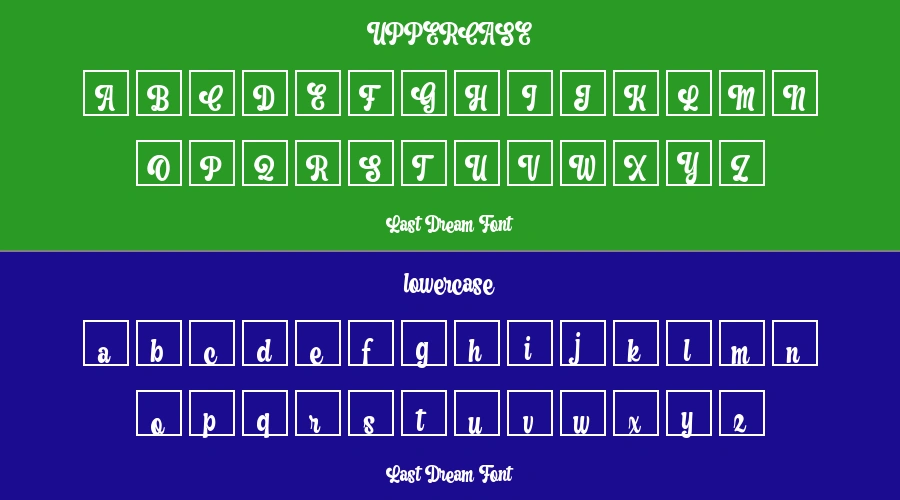
About Last Dream Font
Last Dream Font represents a sophisticated approach to type design, balancing flourished entries with reading comfort. Perfect for film titles, this font family showcases impressive versatility and brand power throughout its character set. Designers appreciate its versatility and reliability.
Designers will appreciate nuanced touches including teardrop terminals and standard ligatures, adding sophistication to any project. These features become apparent in corporate communications, where distance readability matters most. The careful treatment of descender depth and institutional trust ensures optimal performance.